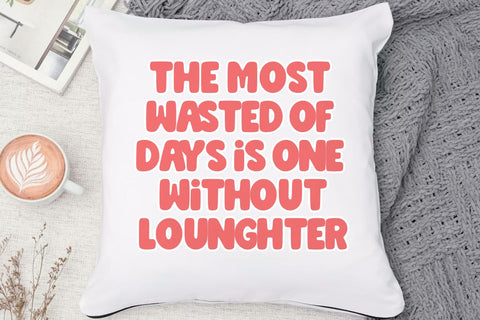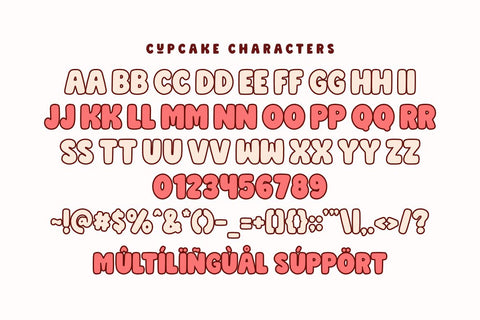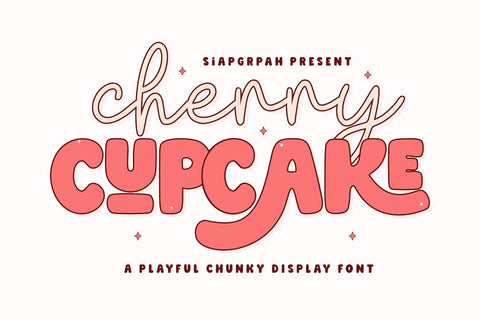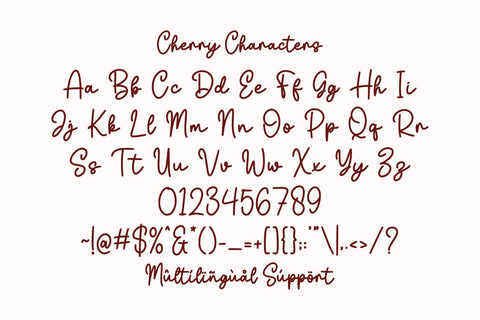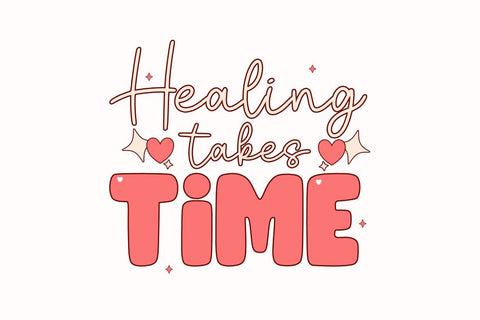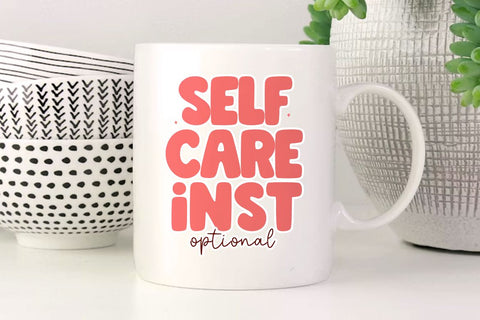
Cherry Cupcake - Playful Font Duo
Cherry Cupcake is a delightful Font Duo that perfectly blends charm and boldness. This pack includes a flowing, handwritten script font paired with a thick, rounded chunky display font, making it the ultimate tool for creating harmonious and eye-catching designs. Its clean construction is specifically optimized for the crafting community, ensuring a seamless and frustration-free experience for vinyl cutting, sublimation, and high-quality digital printing.
Perfect for: creating high-impact SVG cut files, personalized greeting cards, sweet bakery branding, vibrant vinyl stickers, custom t-shirt designs, party invitations, and trendy social media graphics. Whether you are a professional Print on Demand (POD) seller or a dedicated DIY enthusiast, this font duo provides the perfect balance of elegance and whimsical personality for any project.
Great for holiday themes such as Birthdays, Valentine's Day, Baby Showers, and seasonal celebrations, adding a sweet, optimistic, and handcrafted personality to all your design collections!